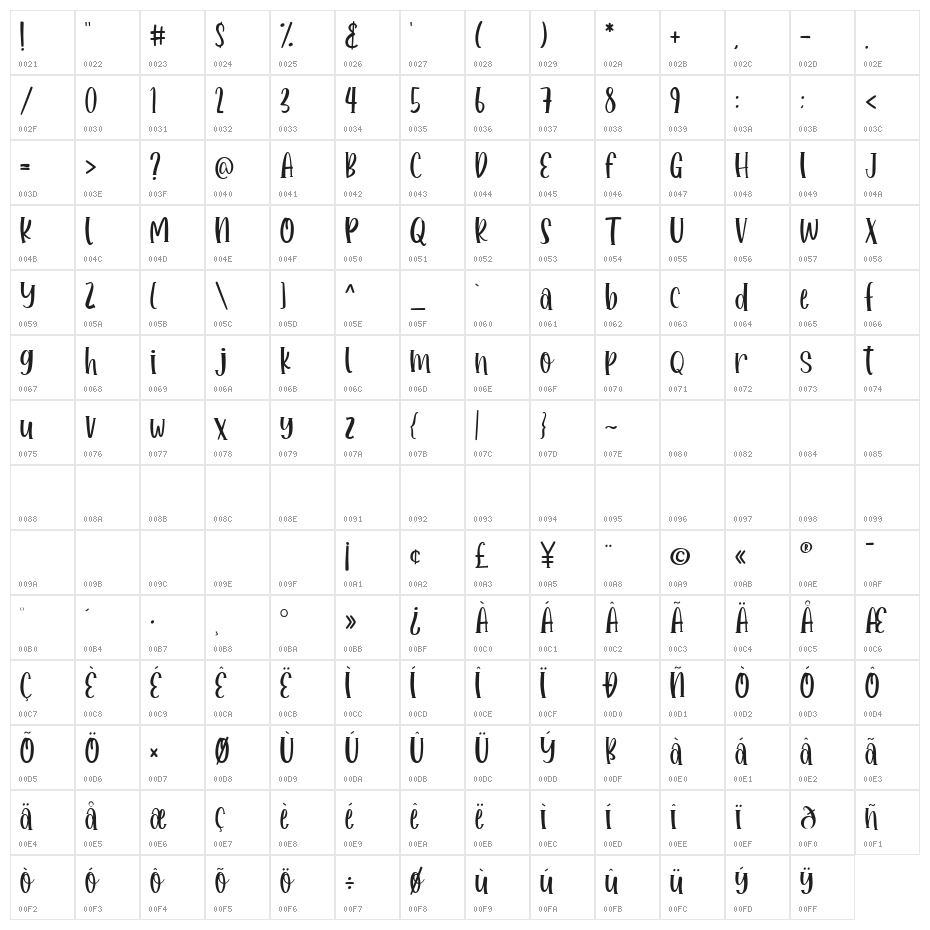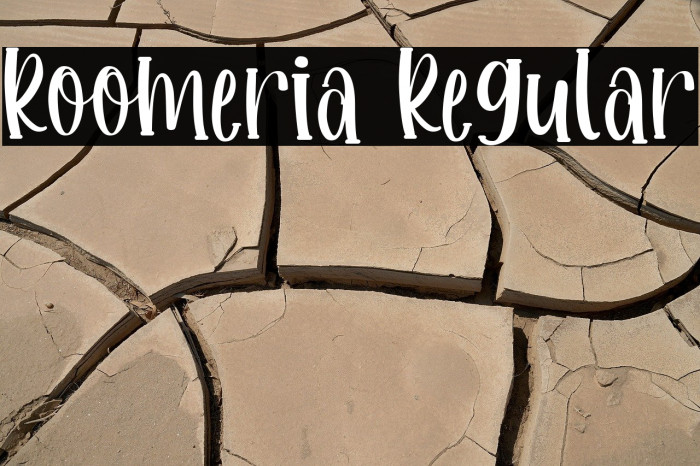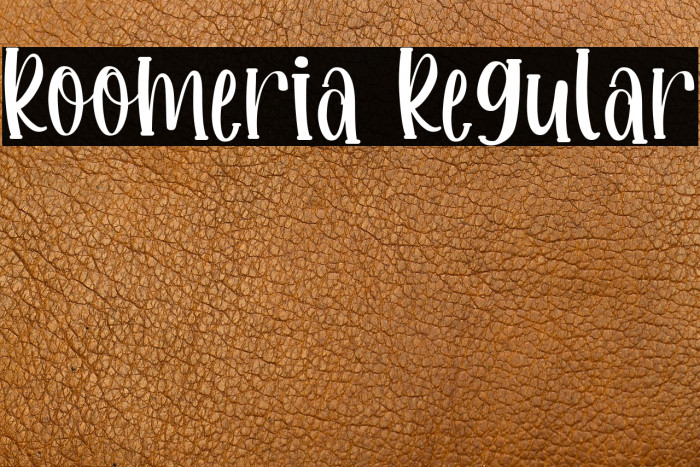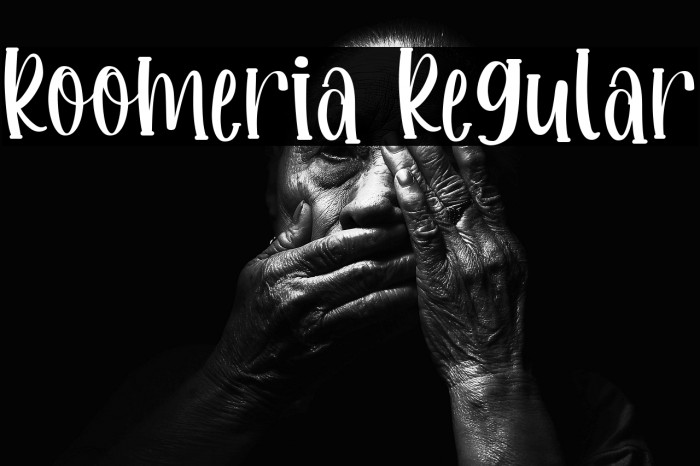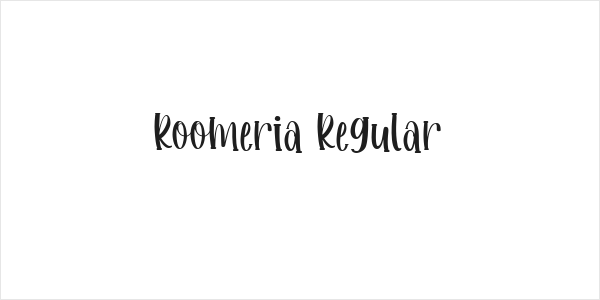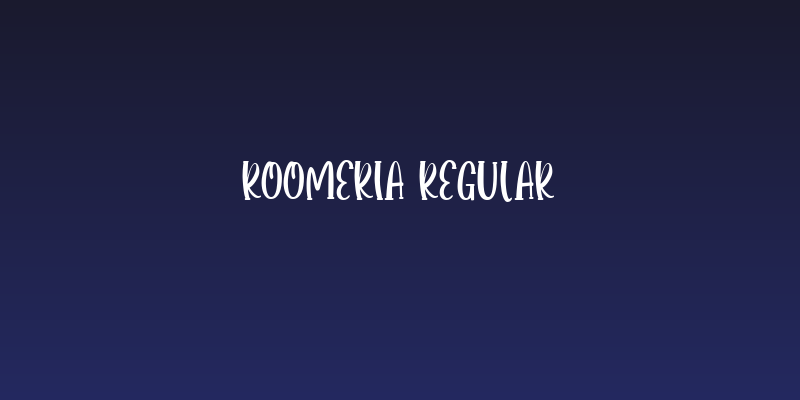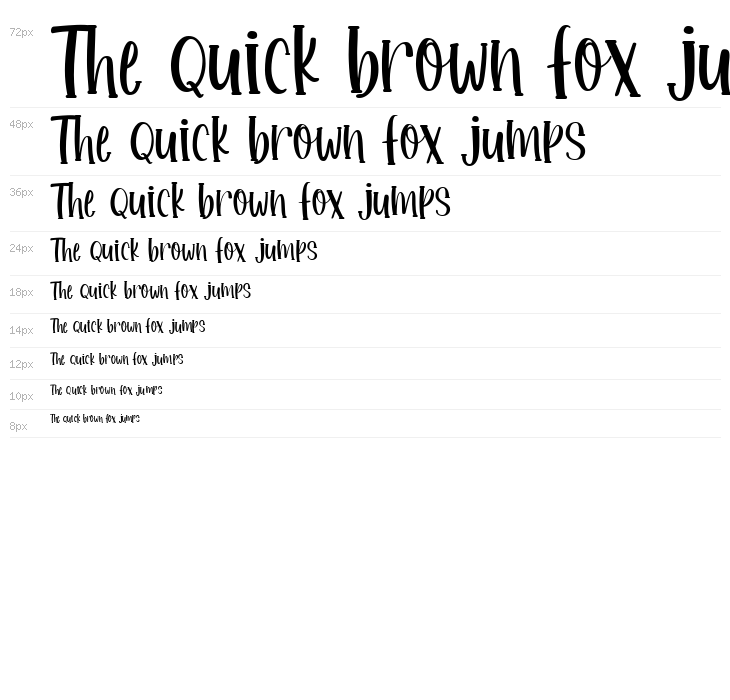
Roomeria Regular Font
Roomeria Regular Description
This font features a playful and whimsical style with a handwritten appearance. The letters are bold and slightly irregular, giving it a casual and friendly vibe. The strokes are thick with a consistent weight, and the characters have a slight slant, adding to the dynamic feel. The uppercase and lowercase letters maintain a cohesive look, while the numerals and special characters complement the overall design. The font's unique character shapes make it suitable for creative and informal projects.
| Proposed Projects | Ideal for greeting cards, children's books, playful branding, and social media graphics. |